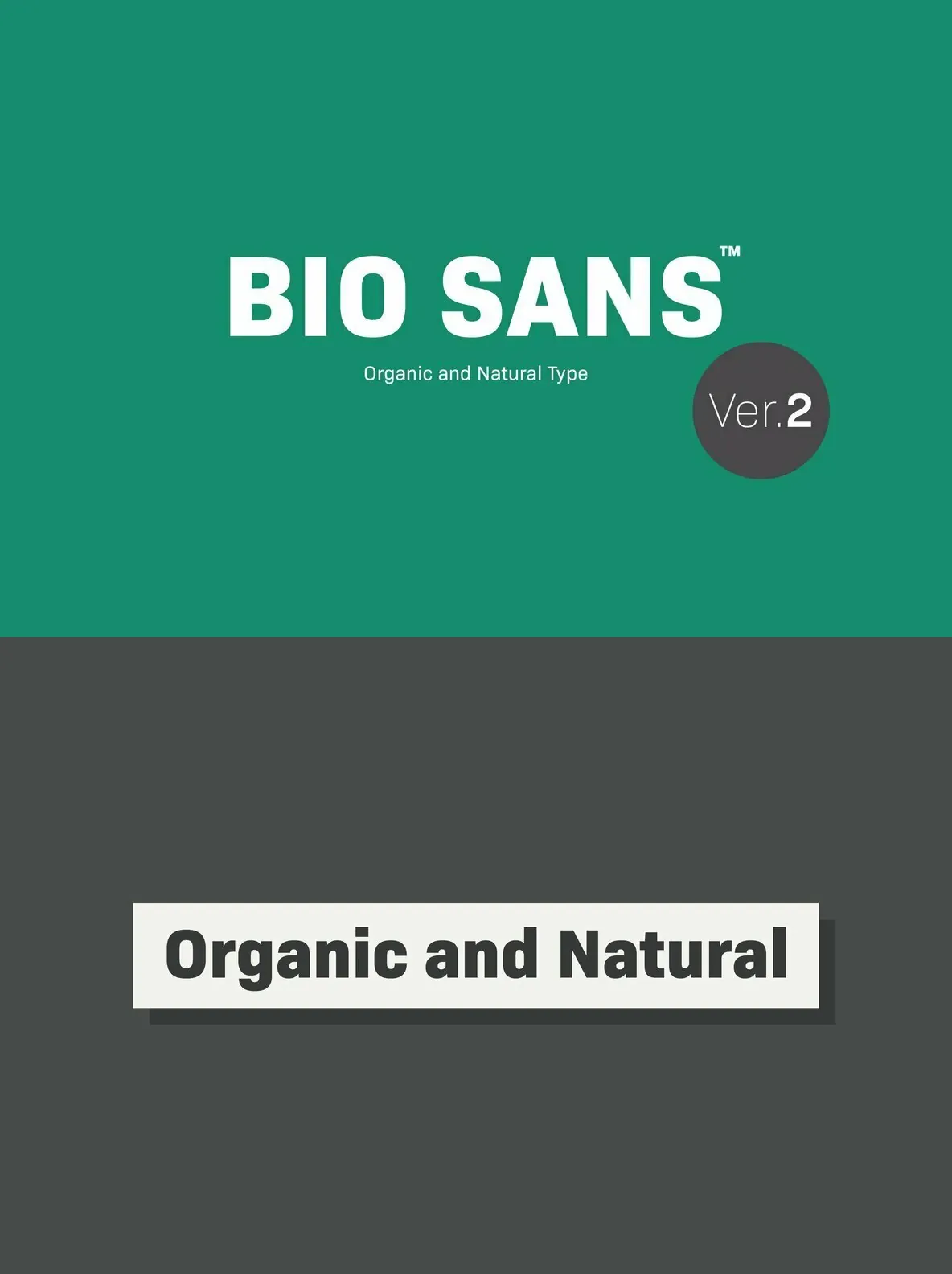
Bio Sans Neutral Sans-Serif Typeface
Bio Sans offers a modern and balanced sans-serif typeface built for clear, effective communication. With six weights ranging from ExtraLight to ExtraBold and matching italics, this family provides smooth versatility for a variety of design needs. Its neutral character makes it suitable for body text, branding, and editorial projects, ensuring a professional and unobtrusive appearance.
Key Features
Six weights, from ExtraLight to ExtraBold
Matching italics for every weight
Optimized for readability in text and digital environments
Consistent, neutral tone suits multiple design contexts